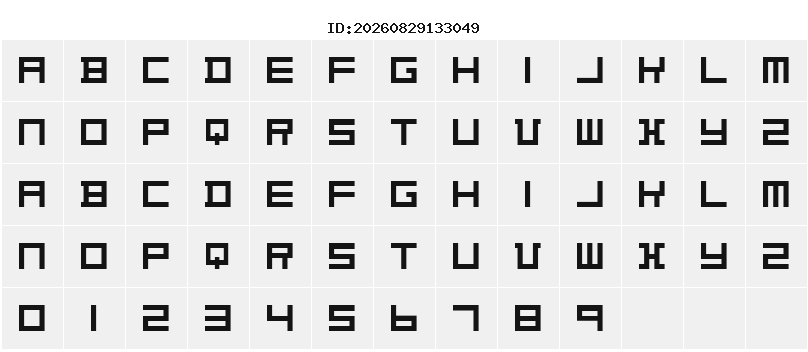
Theo Van Doesburg.ttf is a modern, elegant sans-serif font designed for ultimate readability and visual harmony. Perfect for branding, headlines, web design, and print materials.